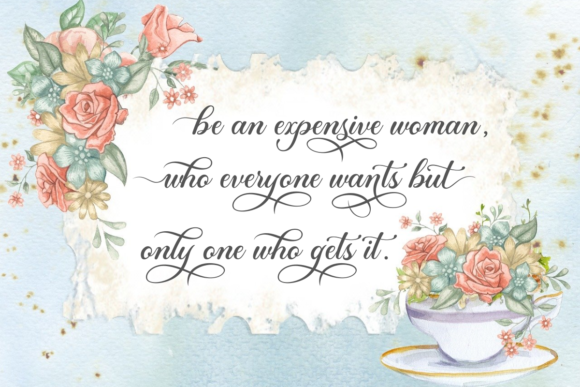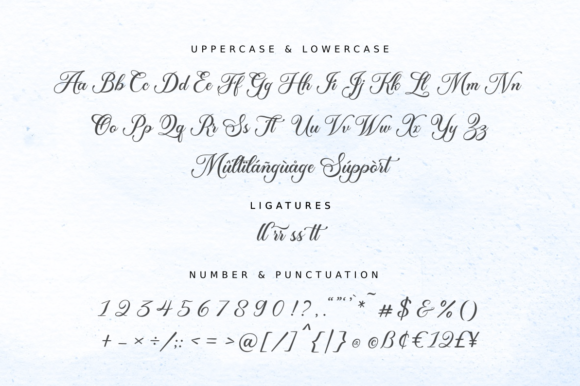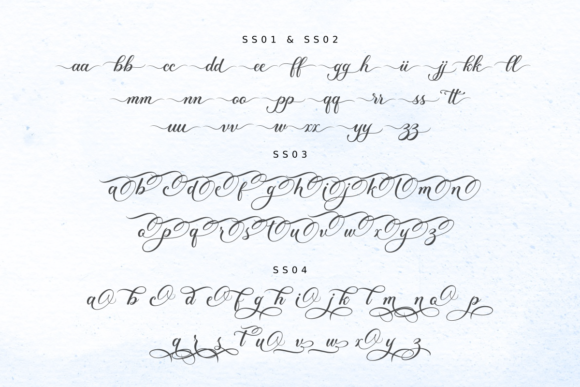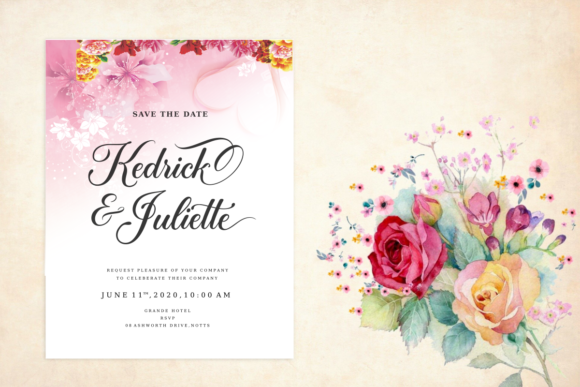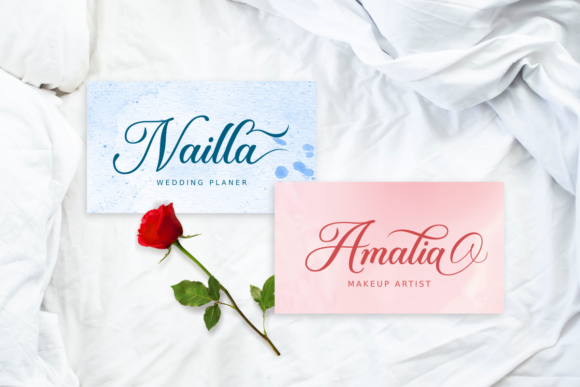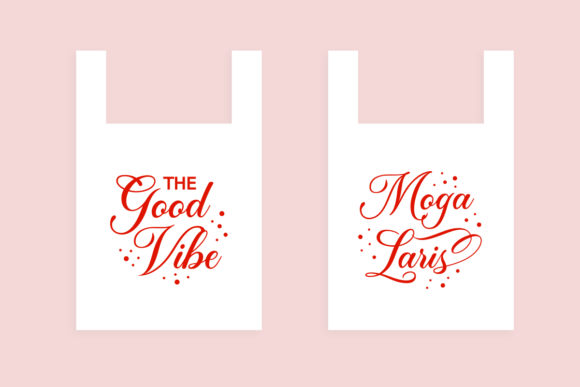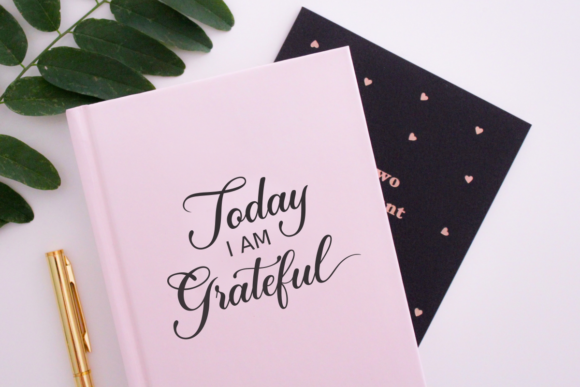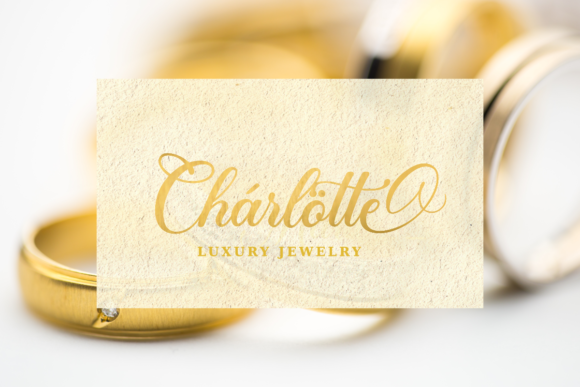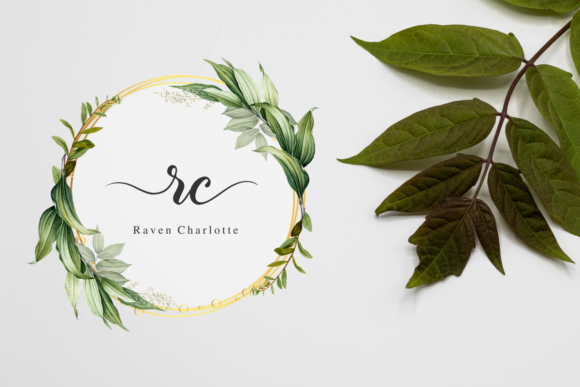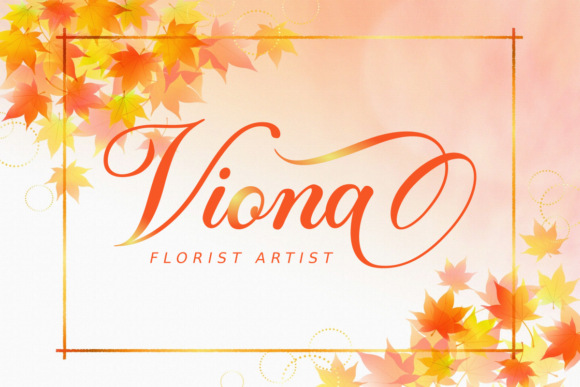
Madina Font
About Madina Font
Madina feels both magical and elegant. It looks stunning on wedding invitations, thank you cards, quotes, greeting cards, logos, business cards and every other design which needs a handwritten touch.